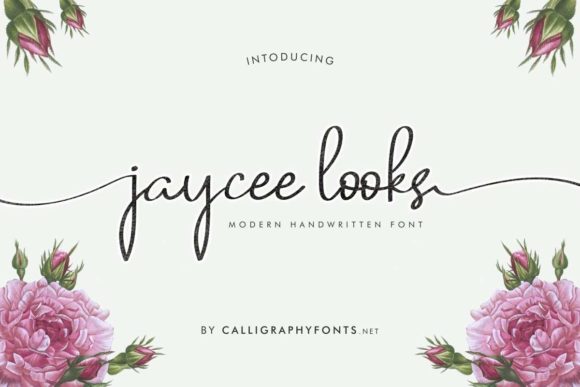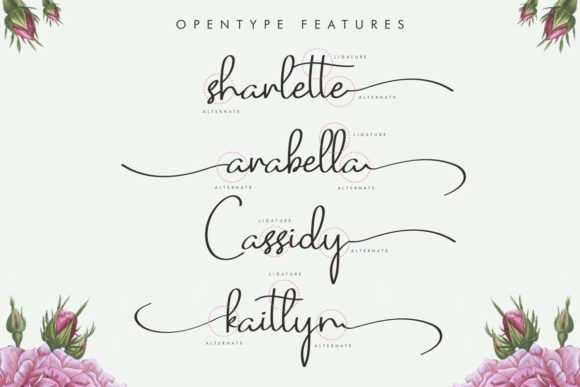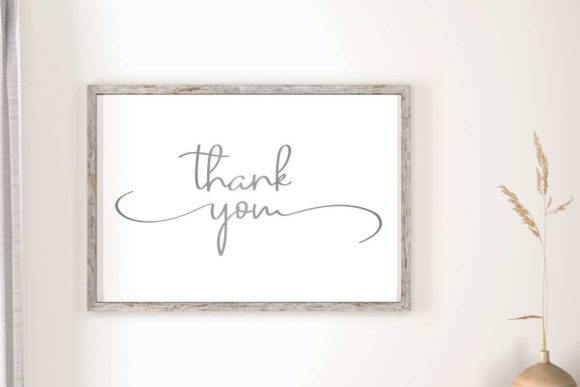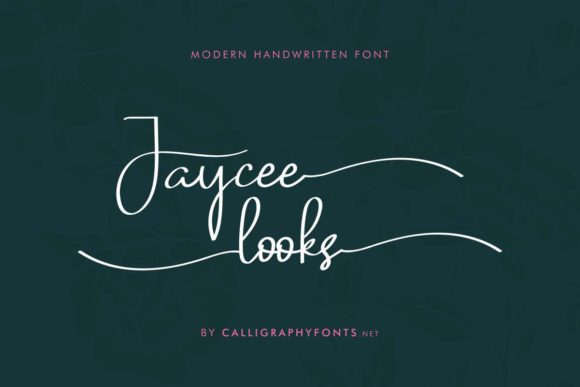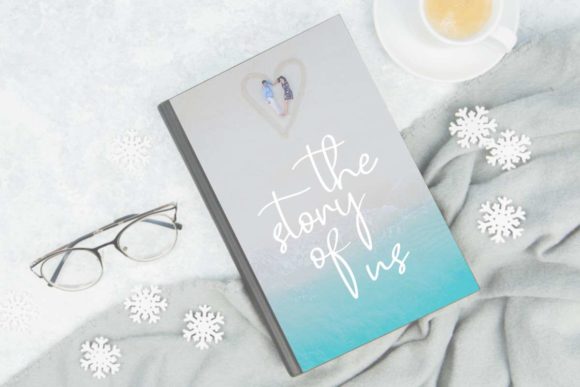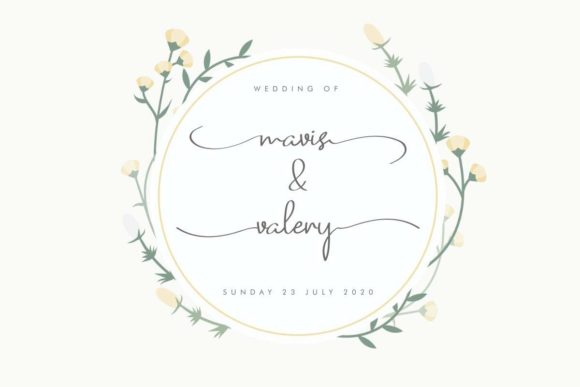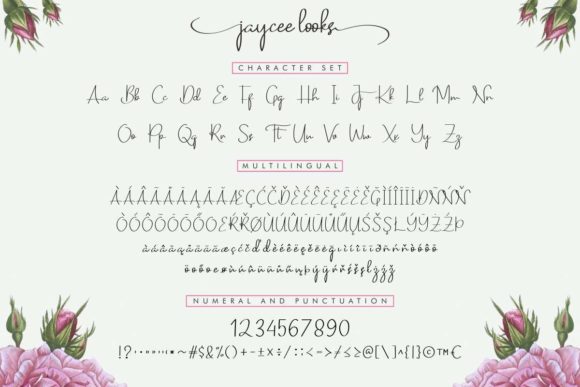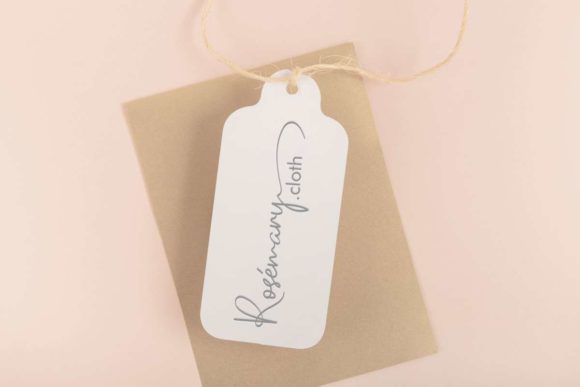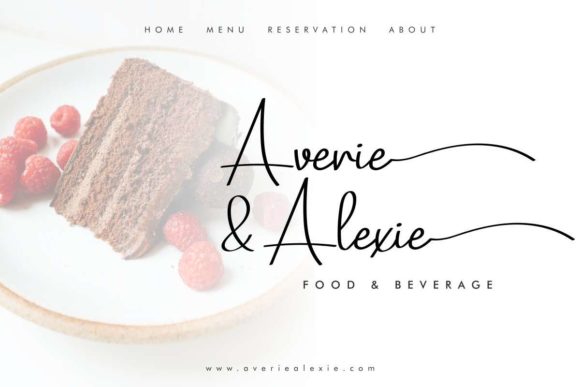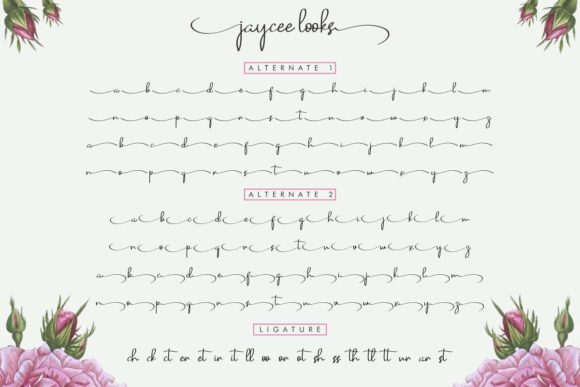
Jaycee Looks Font
About Jaycee Looks Font
Jaycee Looks is a delicate and elegant handwritten font. Its distinct and well rounded letters make this font a masterpiece. Fall in love with its incredibly versatile style and use it to create spectacular designs!